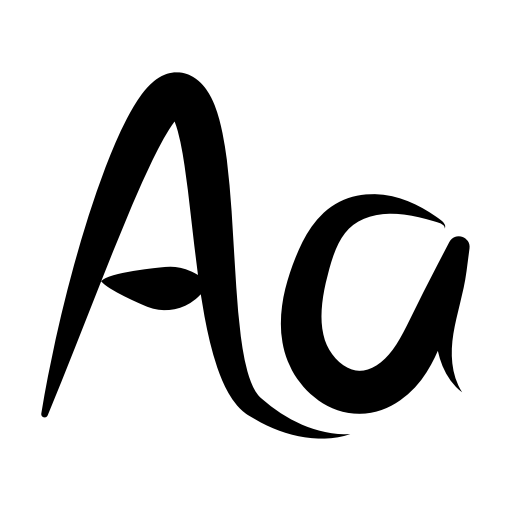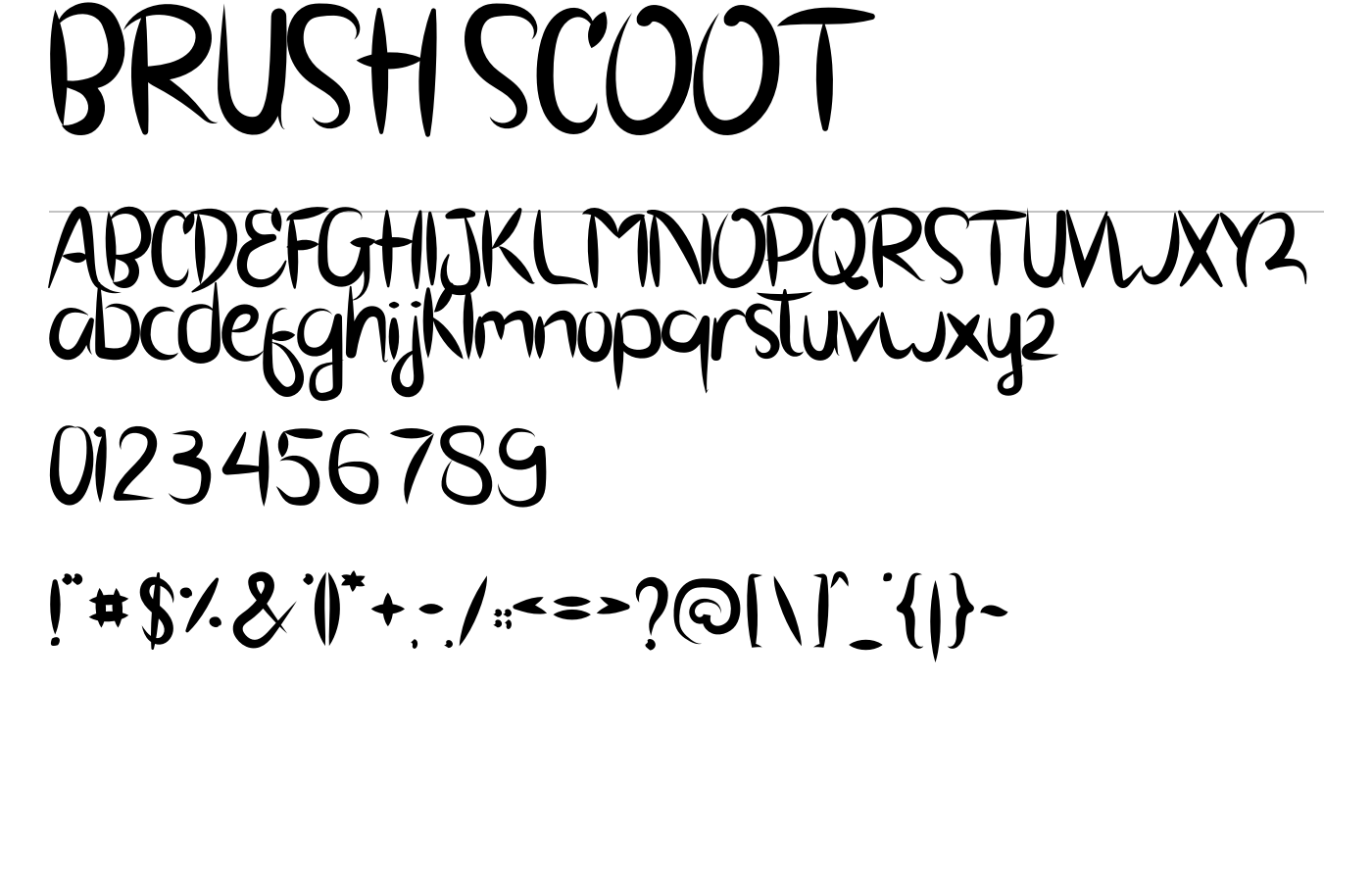
BRUSH SCOOT is a playful, hand-drawn script font with a lively, brushstroke-inspired style, featuring irregular strokes and whimsical letterforms that convey a casual, artistic vibe. Its tall, narrow characters and uneven baseline create an energetic and informal feel, making it perfect for creative projects, children’s books, and branding that seeks a fun, approachable personality. This font works wonderfully in headlines, logos, and packaging where a dynamic, hand-crafted impression is desired.
BRUSH SCOOT Font
About BRUSH SCOOT Font
| Font family | BRUSH SCOOT Font |